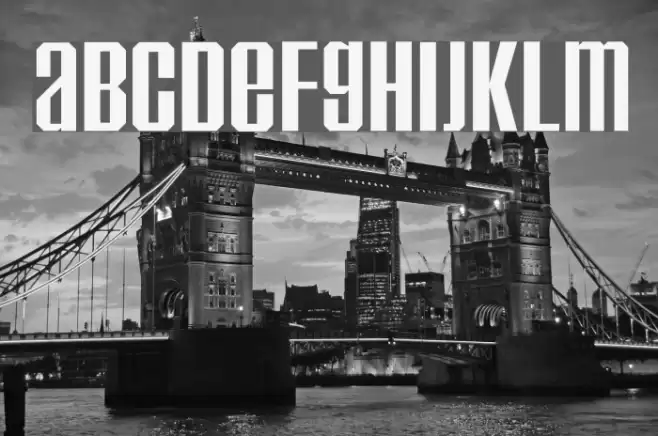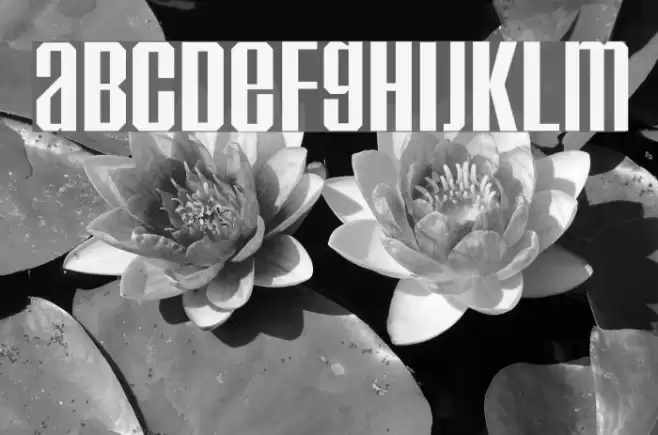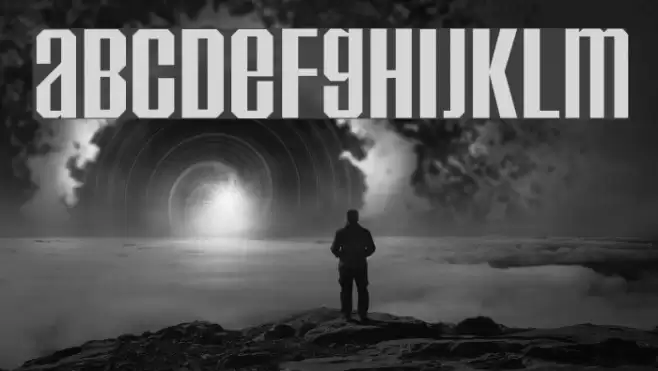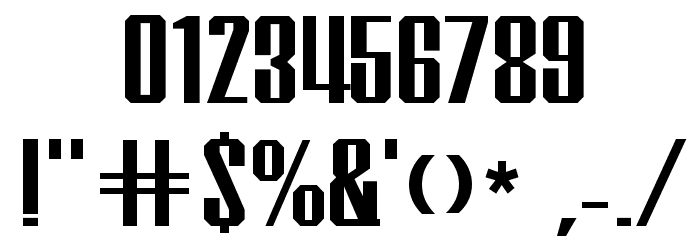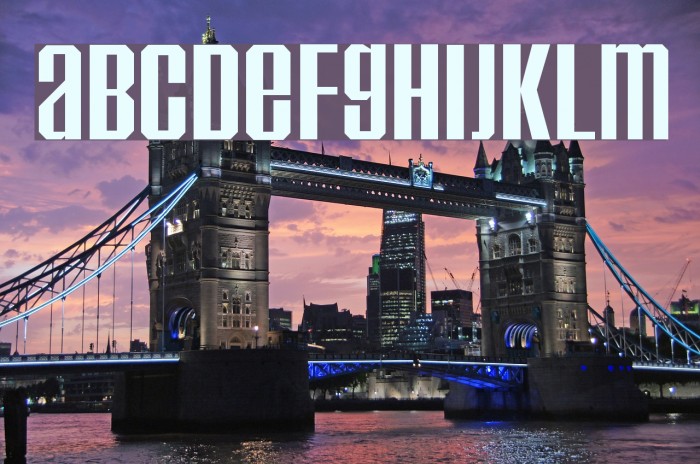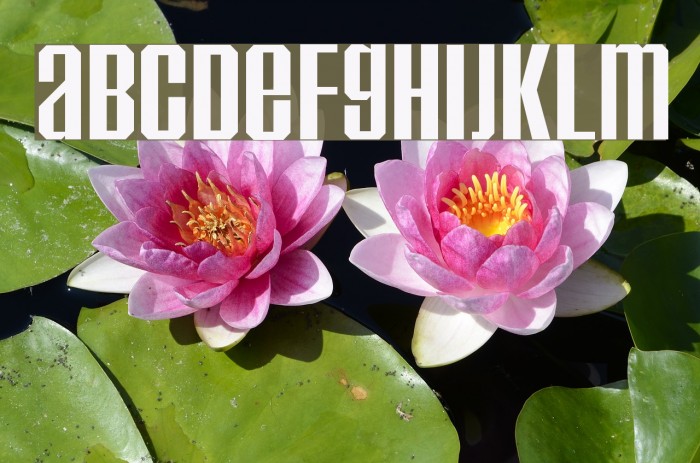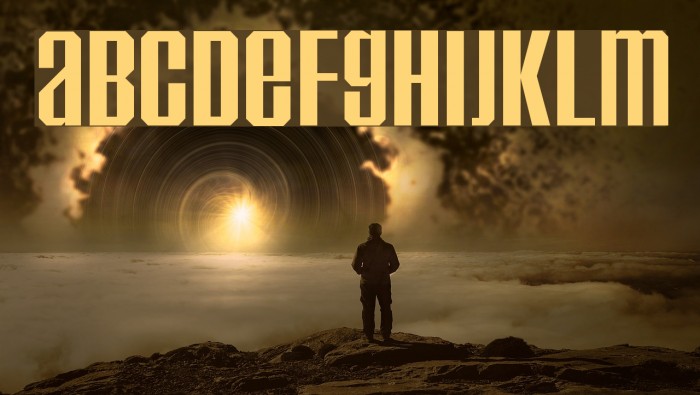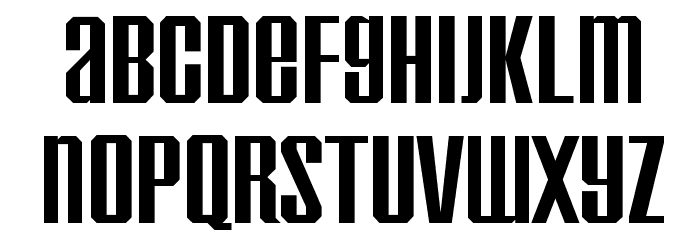
Inflammable Age Font
Inflammable Age Description
This font features a bold and striking design with a modern, geometric aesthetic. The characters are tall and narrow, with sharp angles and clean lines that create a sense of strength and stability. The uppercase and lowercase letters maintain a consistent height, contributing to a uniform appearance. The numbers and special characters are designed to match the overall style, ensuring cohesion across all elements. This font's boldness and unique style make it ideal for attention-grabbing designs.
A bold, geometric font with tall, narrow characters and sharp angles from Capitals fonts.
- Proposed Projects: Ideal for posters, logos, branding materials, and headlines that require a strong visual impact.